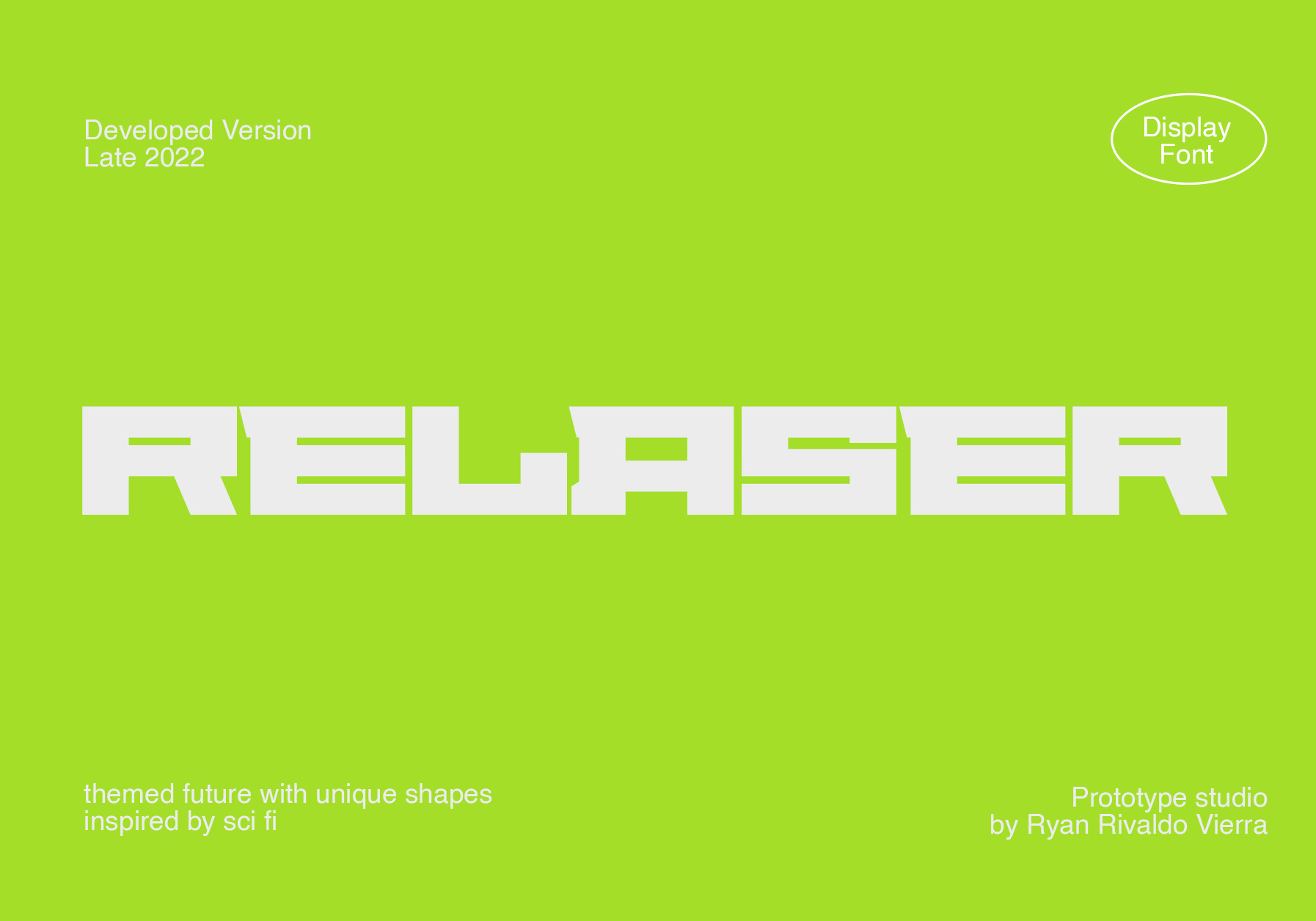
RELASER Display Font
Relaser Display Typeface is the latest work coming from Ryan Rivaldo Vierra. Its sharp and clean look makes this display font is ideal for posters and titles. Hence, it will work great for sports ads and Instagram or social media ads, logo, branding and a lot more.